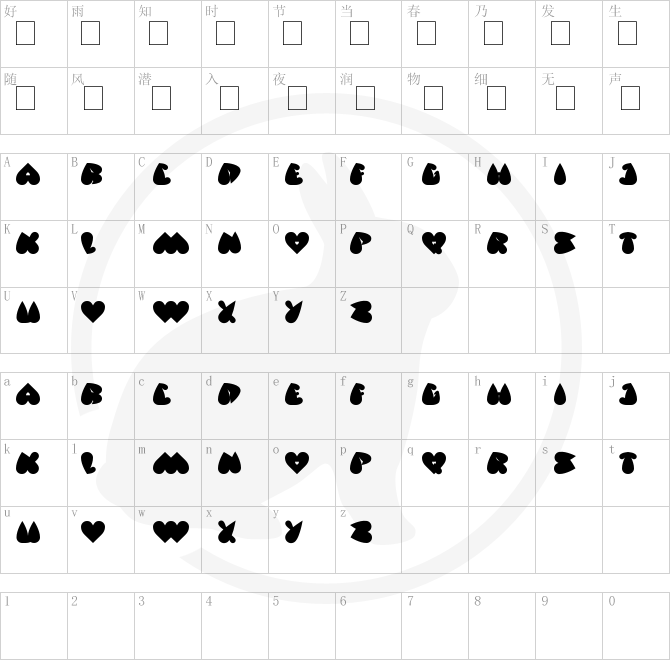
• Font Name:valentine's day
• Full Name:valentine's day
valentine-s-day.ttf is a very beautiful artistic font, valentine-s-day.ttf is widely used in the design and printing of various books and pictures,valentine-s-day.ttf has a strong visual impact,valentine-s-day.ttf is a commonly used font in newspapers, magazines and books, and is used in posters, e-commerce Poster design, store design, logo design, font design and other fields.valentine-s-day.